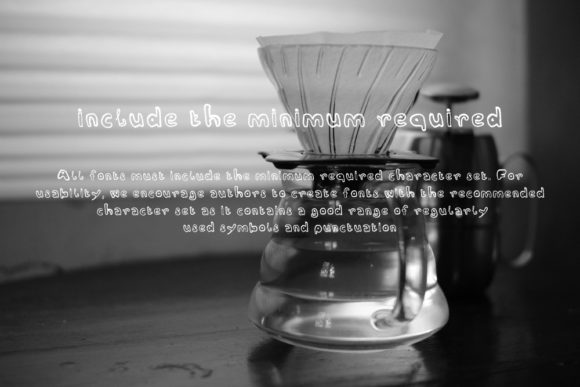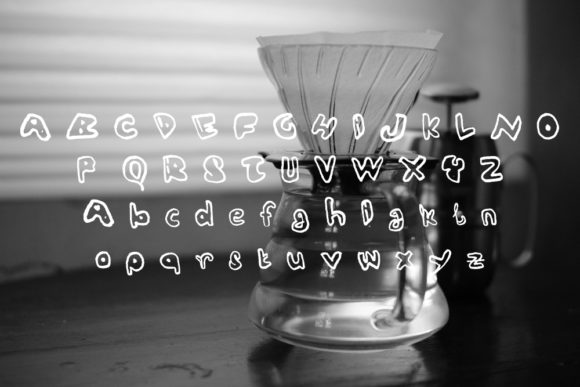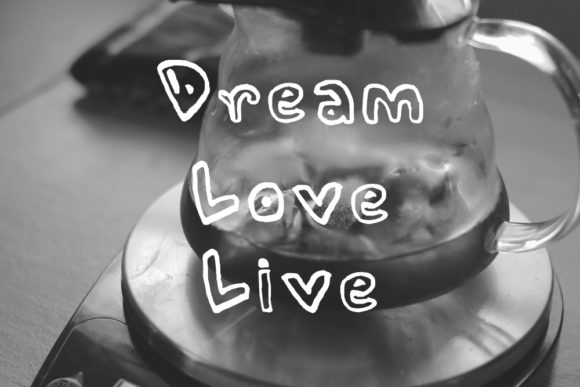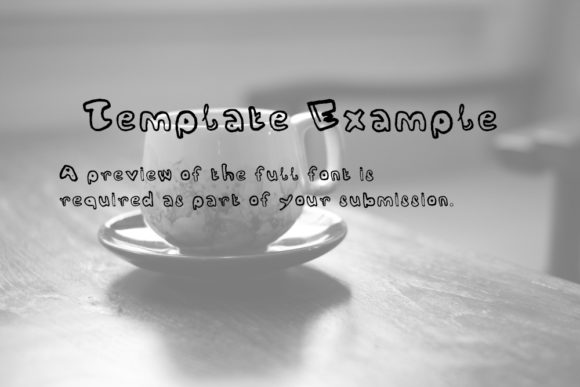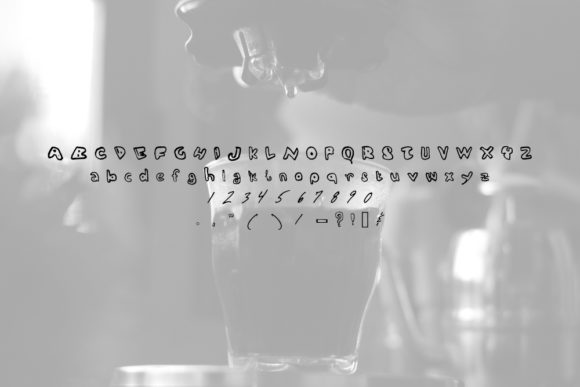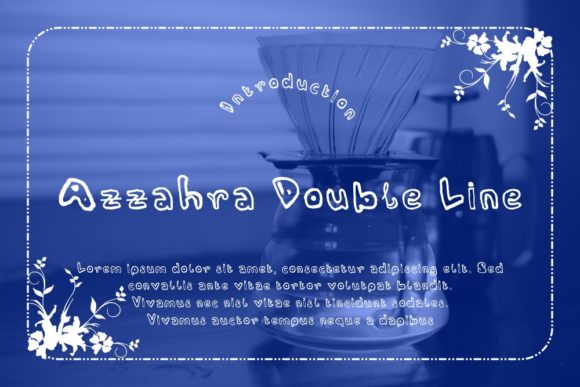
Azzahra Double Line Font: A Quirky Display Font for Creative Projects
Azzahra Double Line Font is a unique and playful display font that can add a touch of whimsy to a wide range of creative projects. With its quirky design and double-line structure, this font is sure to grab attention and make your designs stand out. In this article, we’ll take a closer look at the Azzahra Double Line Font, its features, and how you can use it to elevate your designs.
What is Azzahra Double Line Font?
Azzahra Double Line Font is a display font designed to make a statement. Its double-line structure gives it a distinctive look that’s both playful and eye-catching. This font is perfect for designers and crafters looking to add a touch of personality to their projects. Whether you’re working on a logo, poster, or social media graphic, Azzahra Double Line Font is sure to make your design pop.
Key Features of Azzahra Double Line Font
- Quirky Design: Azzahra Double Line Font has a playful, quirky design that’s sure to grab attention.
- Double-Line Structure: The font’s double-line structure gives it a unique look that’s both stylish and eye-catching.
- Display Font: Azzahra Double Line Font is designed specifically as a display font, making it perfect for headlines, titles, and other attention-grabbing elements.
- Wide Range of Contexts: This font can be used in a wide range of contexts, from logos and posters to social media graphics and more.
How to Use Azzahra Double Line Font
Azzahra Double Line Font is a versatile font that can be used in a variety of creative projects. Here are a few ideas to get you started:
- Logos: Use Azzahra Double Line Font to create a unique and eye-catching logo for your business or brand.
- Posters: Add a touch of whimsy to your posters with Azzahra Double Line Font.
- Social Media Graphics: Use Azzahra Double Line Font to create attention-grabbing social media graphics that will help your posts stand out.
- Signs: Azzahra Double Line Font is perfect for creating eye-catching signs for events, sales, and more.
Tips for Pairing Azzahra Double Line Font with Other Fonts
When pairing Azzahra Double Line Font with other fonts, it’s essential to choose fonts that complement its playful, quirky design. Here are a few tips to keep in mind:
- Pair with a Serif Font: Pair Azzahra Double Line Font with a serif font, such as Arial or Times New Roman, to create a nice contrast between the playful display font and a more traditional font.
- Pair with a Script Font: Pair Azzahra Double Line Font with a script font, such as Lobster or Pacifico, to add a touch of elegance to your design.
- Use a Font with a Similar Style: If you want to create a cohesive look, try pairing Azzahra Double Line Font with another font that has a similar style or structure.
Azzahra Double Line Font is a quirky and eye-catching display font that’s perfect for designers and crafters looking to add a touch of personality to their projects. With its double-line structure and playful design, this font is sure to grab attention and make your designs stand out. Whether you’re working on a logo, poster, or social media graphic, Azzahra Double Line Font is a great choice.
Overall, Azzahra Double Line Font is a great addition to any designer’s or crafter’s font collection. Its unique and playful design makes it perfect for a wide range of creative projects. So why not give it a try and see how it can elevate your designs?